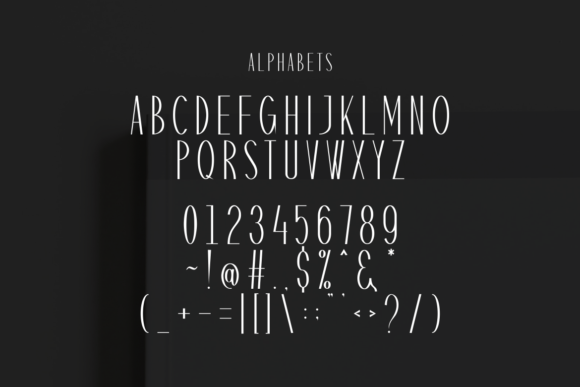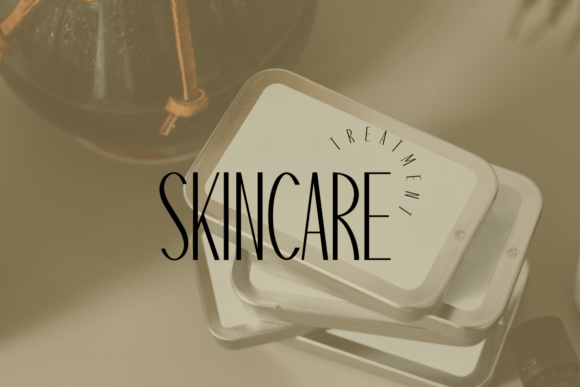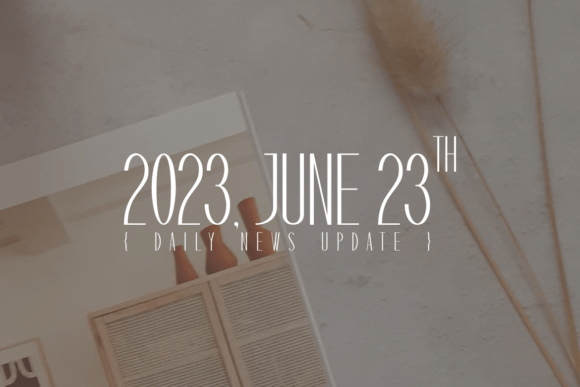
Sanzyume Font: Elegant Sans Serif for Modern Branding & Logo Design
About the Sanzyume Font
Step up your design game with Sanzyume Font, a font that exudes confidence and style. Sanzyume is a Japanese-Korean style font that is suitable for beauty or fashion branding. It will work great for feminine and stylish cosmetics packaging design.
Sanzyume Font Usage Examples
Sanzyume Font Example